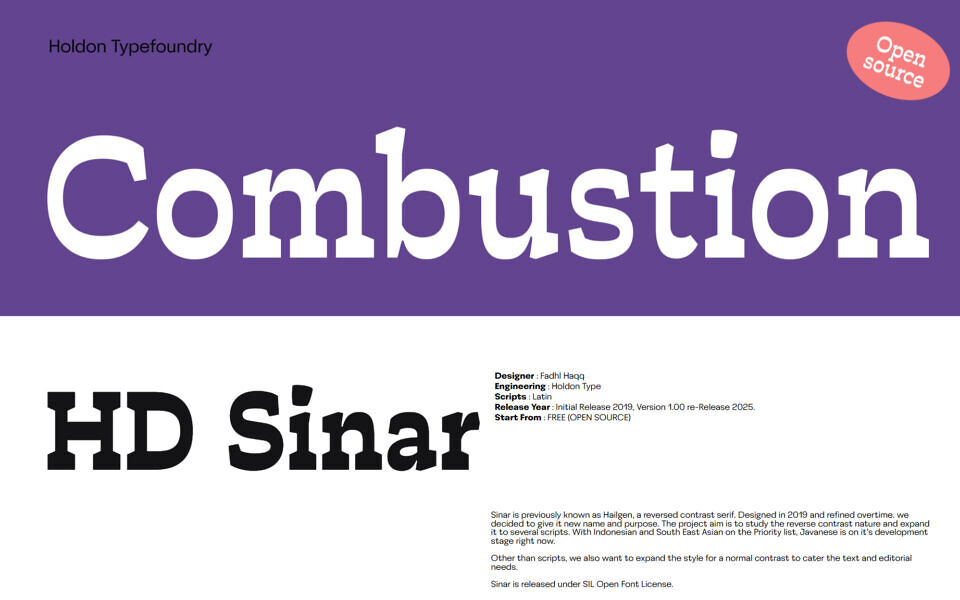
Sinar is previously known as Hailgen, a reversed contrast serif. Designed in 2019 and refined overtime. we decided to give it new name and purpose. The project aim is to study the reverse contrast nature and expand it to several scripts. With Indonesian and South East Asian on the Priority list, Javanese is on it’s development stage right now.
Other than scripts, we also want to expand the style for a normal contrast to cater the text and editorial needs.